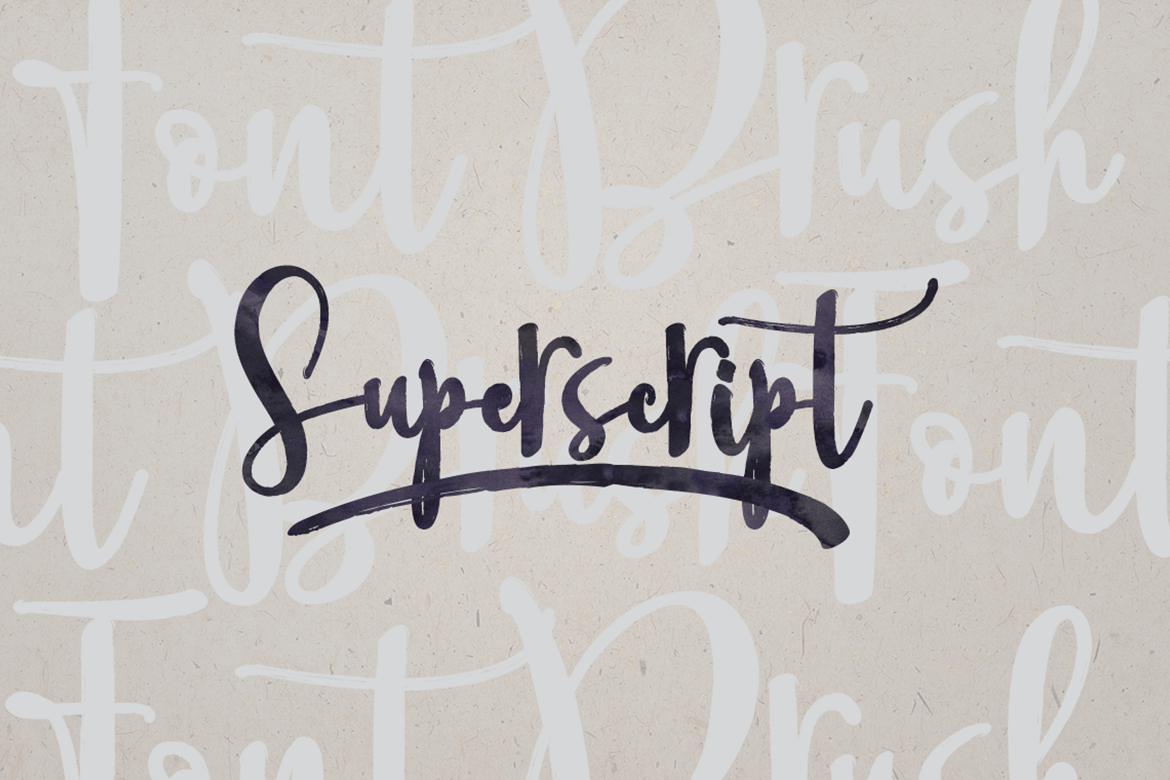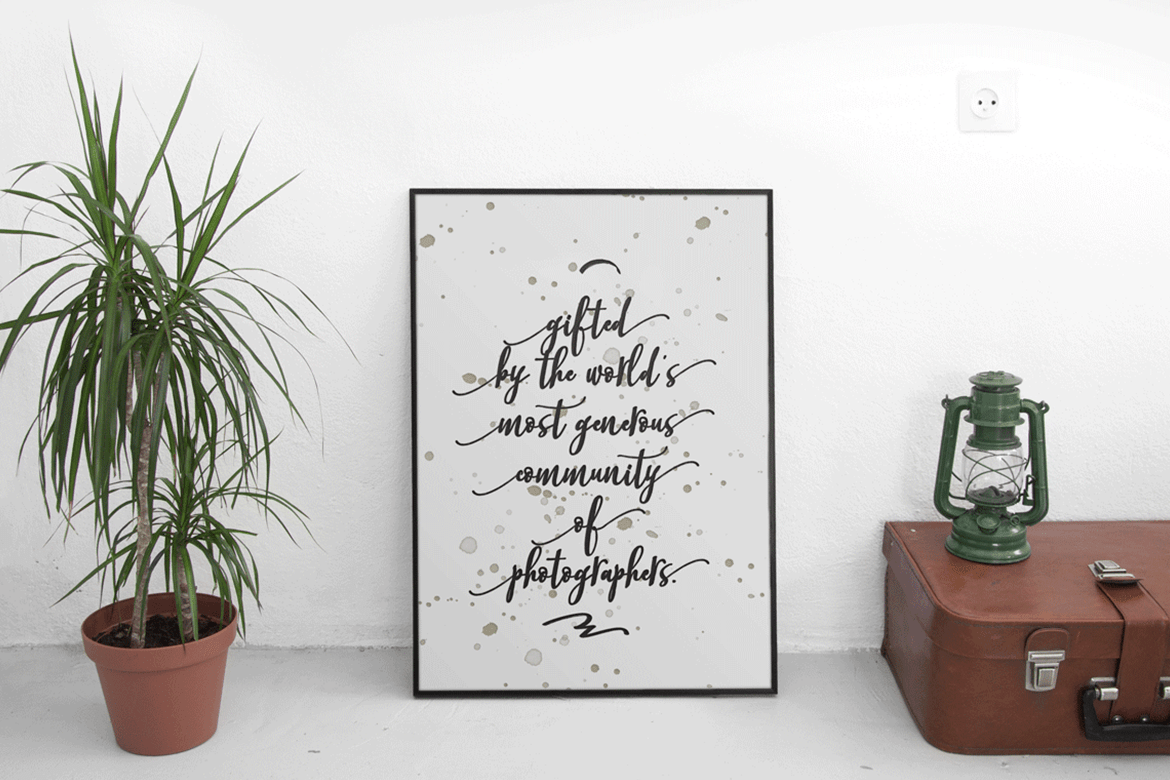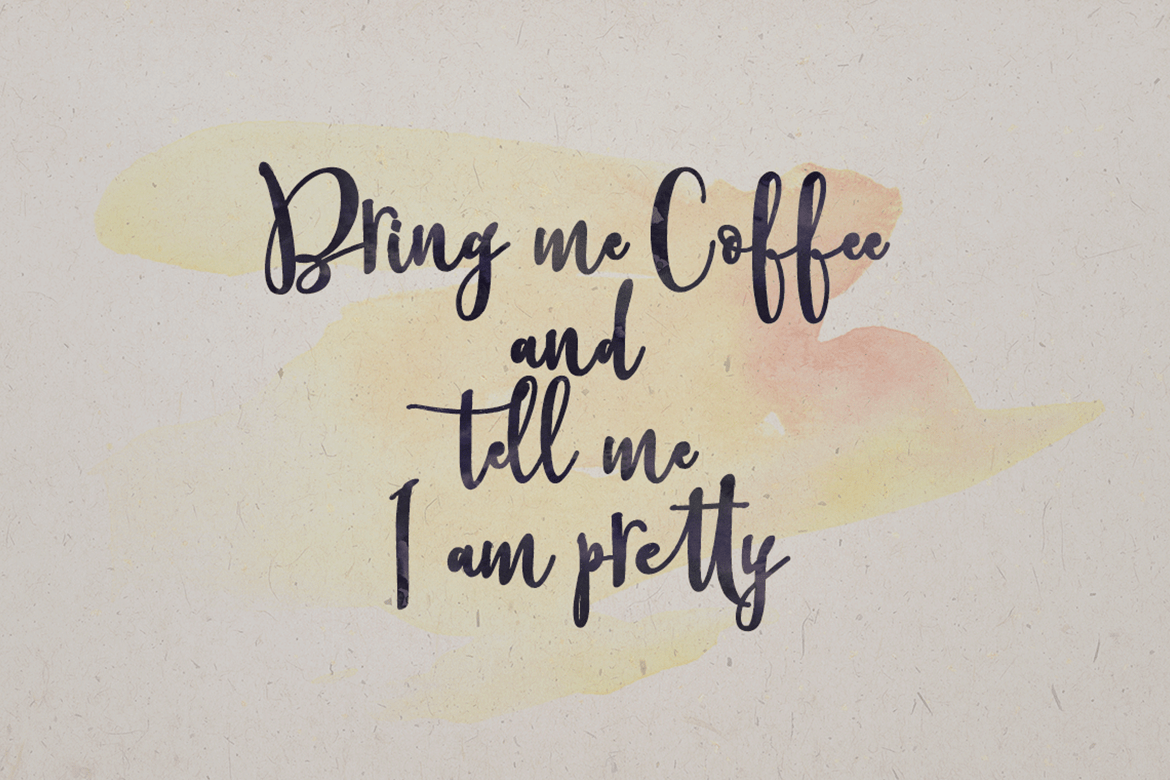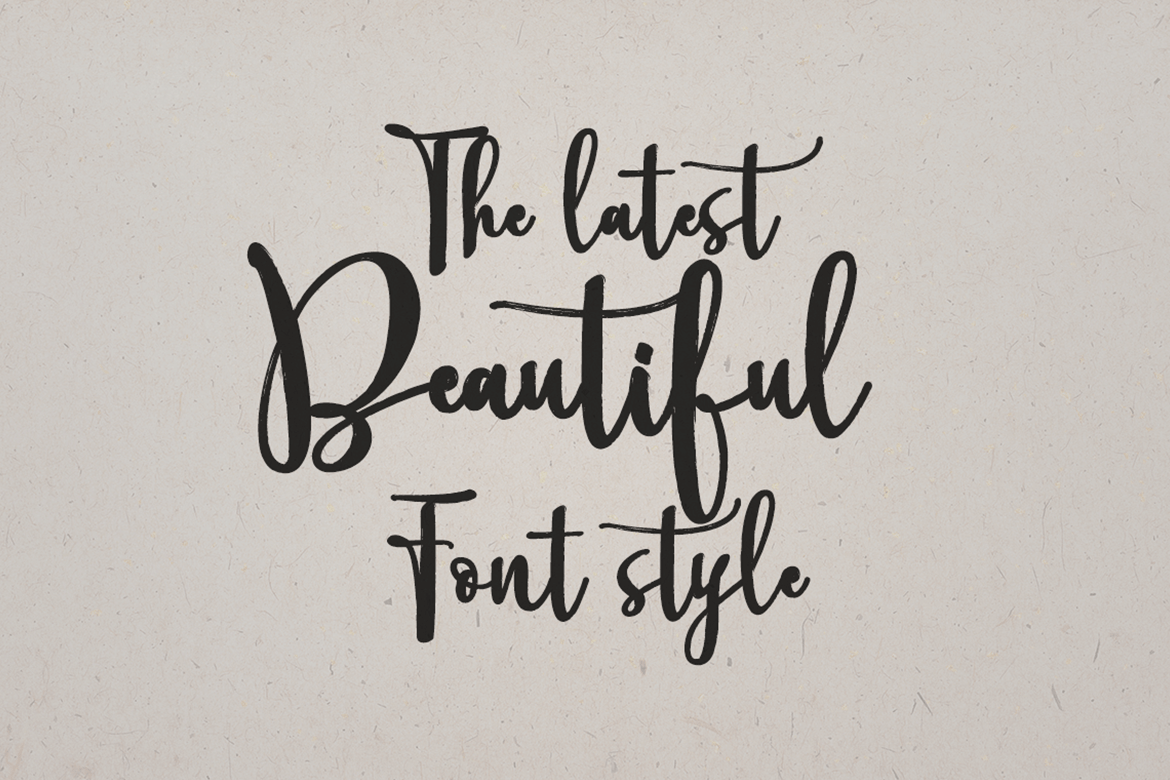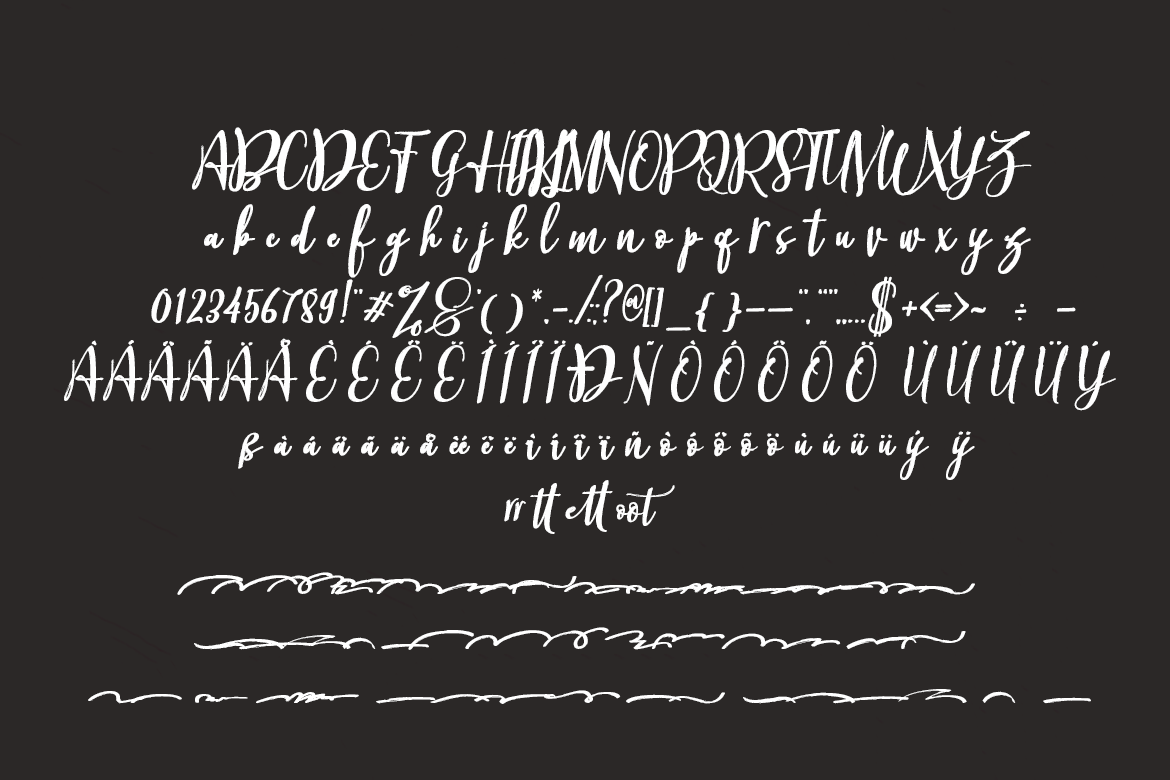
Better Brush
Better Brush are tow styles of fonts, it is that the fonts brush that has a different style. This is the perfect choice for personal branding project. Can be used for various purposes.such as headings, logos, wedding invitations, t-shirts, letterhead, lable, news, posters, badges etc. To enable the OpenType Stylistic alternates, you need a program that supports OpenType features such as Adobe Illustrator CS, Adobe Indesign and CorelDraw X6-X7.
- Better Brush Regular
- Better Brush Italic
- Better Brush Swash